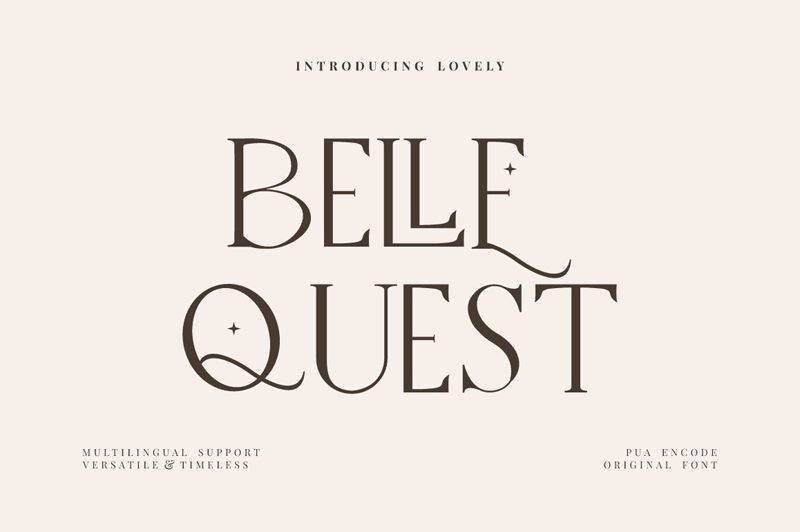
Belle Quest, a captivating serif font crafted by FinTypeStudio, exudes a refined elegance and timeless charm. Its carefully curated strokes and distinctive serifs create a harmonious balance, evoking a sense of sophistication and refinement. This font's versatility shines through its ability to seamlessly adapt to a wide range of design applications, from editorial layouts to high-end branding.
The Belle Quest font's versatility makes it a compelling choice for designers seeking to elevate their projects with a touch of sophistication. Its classic yet contemporary aesthetic lends itself beautifully to various design contexts, from editorial spreads and book covers to luxury packaging and corporate identities. Whether you're crafting a refined editorial piece or elevating a premium brand, the Belle Quest font's distinctive character can help you achieve a polished and visually captivating result.